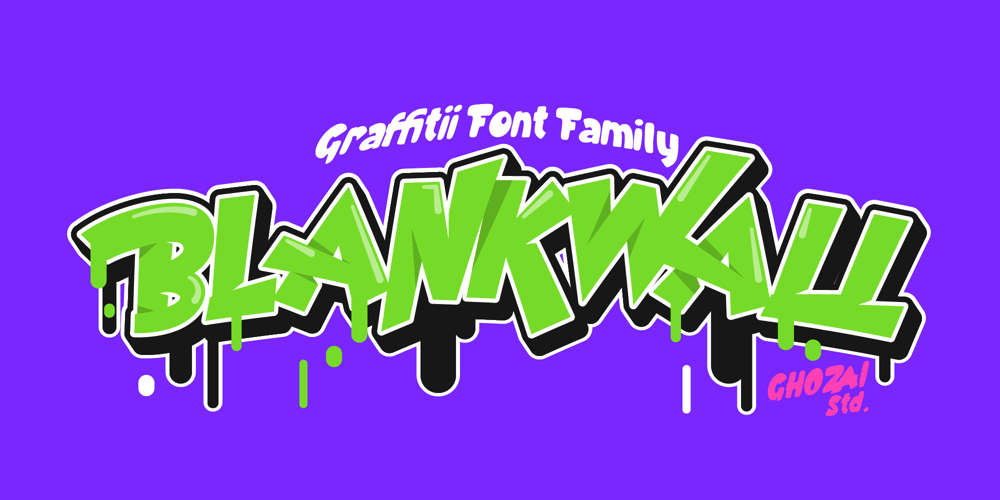
Blankwall Font Family was designed by Manzur Ghozaali and published by Ghozai Studio. Blankwall contains 6 styles and family package options. Blankwall is a display font inspired by a graffiti and street art style typeface. Blankwall comes with the main 3 styles with each italic option of them. Blankwall also includes ligatures and a range of alternate styles to give more personality to your needs. A range of styles gives you more options to create stunning designs. This font is good to use on posters, zines, hero websites, stickers, t-shirts, or other purposes that require a big impact.